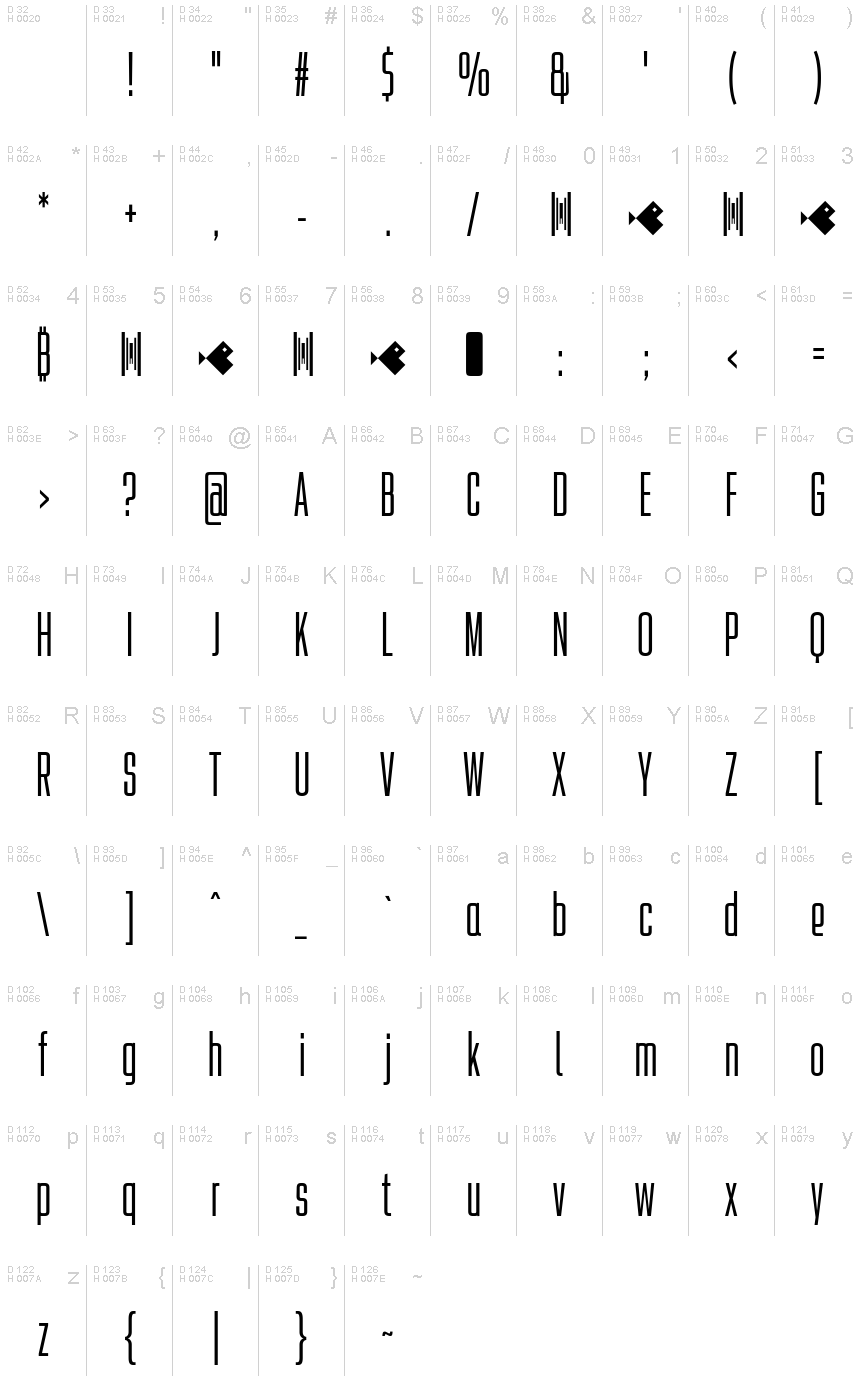
Tighten Regular
With a very beautiful sans serif font, the Tighten by deFharo provides that unique touch for current design ideas. This condensed light font is space-saving but still readable hence good for headlines and branding. It constitutes of sleek lines and is narrow; thus, visually appealing in both digital and print media.
The Tighten typeface managed to accomplish the mission of delivering concise messages using few words while being available as a free personal font. With this unusual lettering style, you can make your logo or banner more refined and easy-to-read. The distinctive style that it carries is specifically designed to enhance the creativity in various projects such as advertisements among others so get one today!
Tighten is a compressed sans serif typeface family, notable for its elegance derived from an exaggerated vertical proportion. His style is a fusion between art-deco and futurism, which gives him an unmistakable and highly readable presence in any medium.